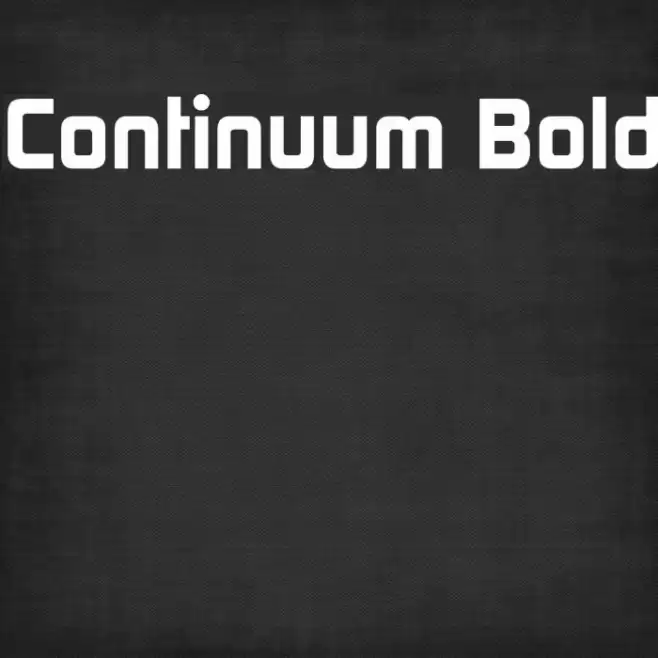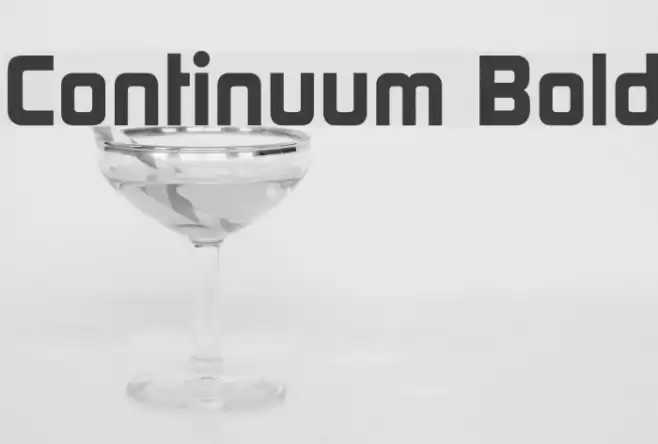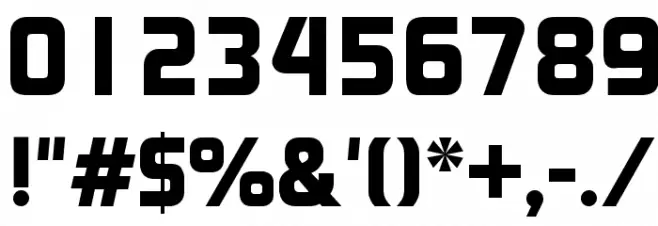
Continuum Bold Font
Continuum Bold Description
This font features a bold and modern design with a strong geometric structure. The characters are well-defined with a consistent stroke width, giving it a clean and contemporary appearance. The uppercase and lowercase letters maintain a uniform style, while the numerals and special characters complement the overall aesthetic. The font's design is versatile, making it suitable for a variety of applications where clarity and impact are essential.
A bold, geometric font with a modern and clean design from Uncategorized fonts.
- Proposed Projects: Ideal for branding, headlines, posters, and digital media where a strong, modern presence is desired.